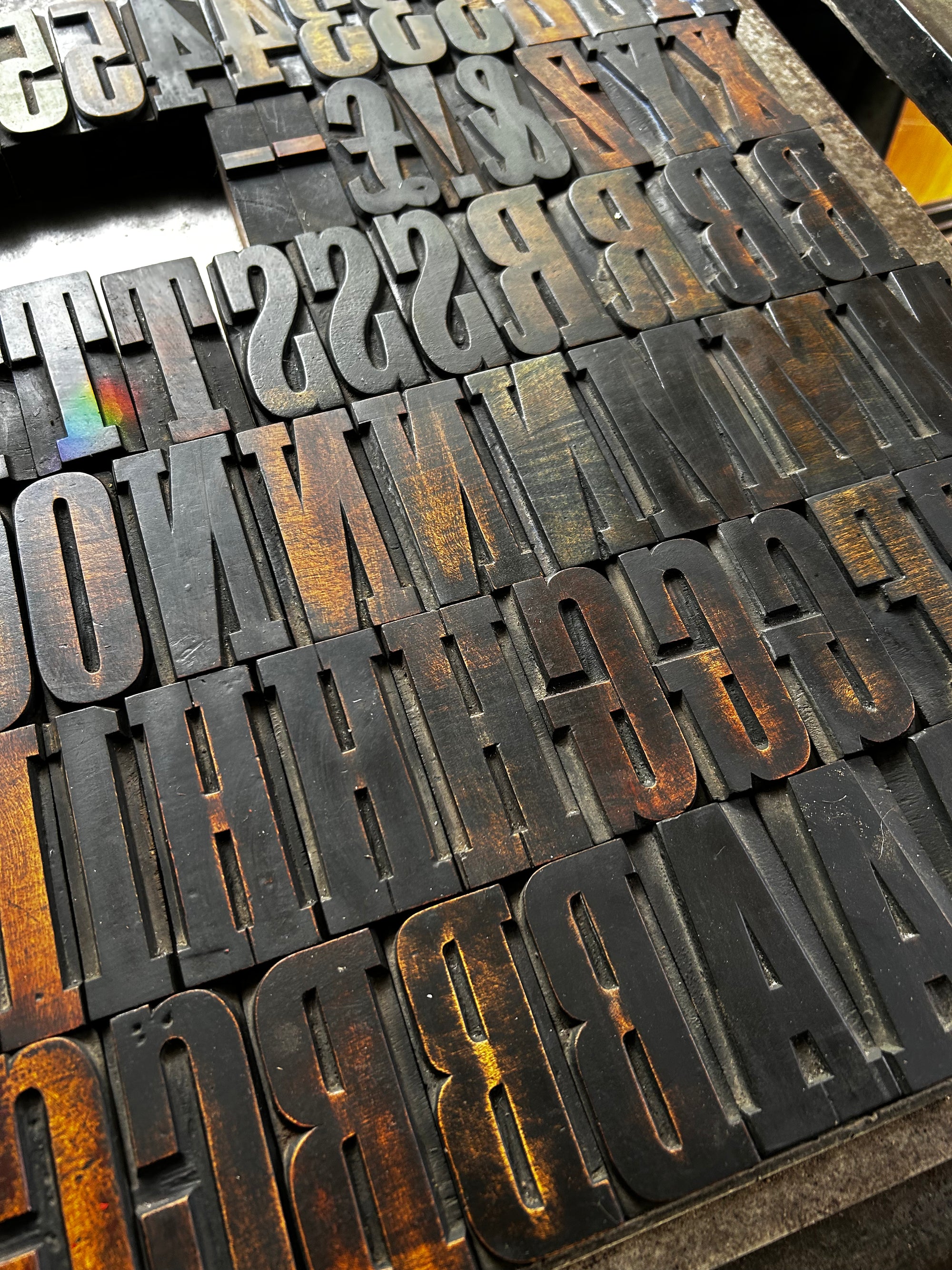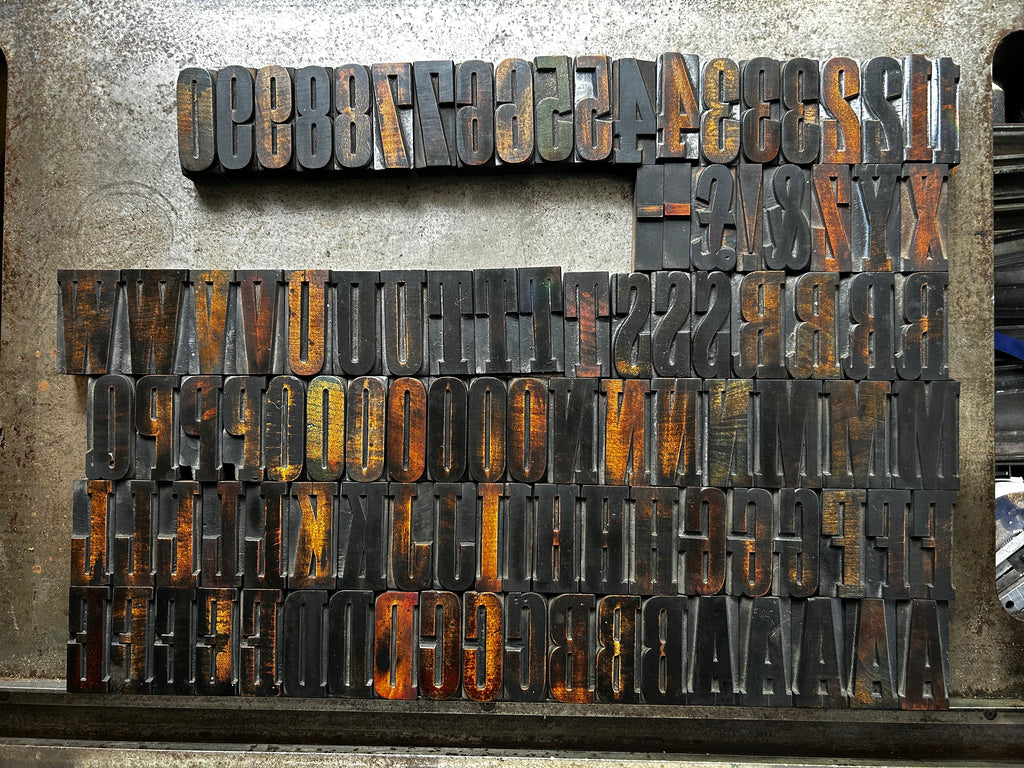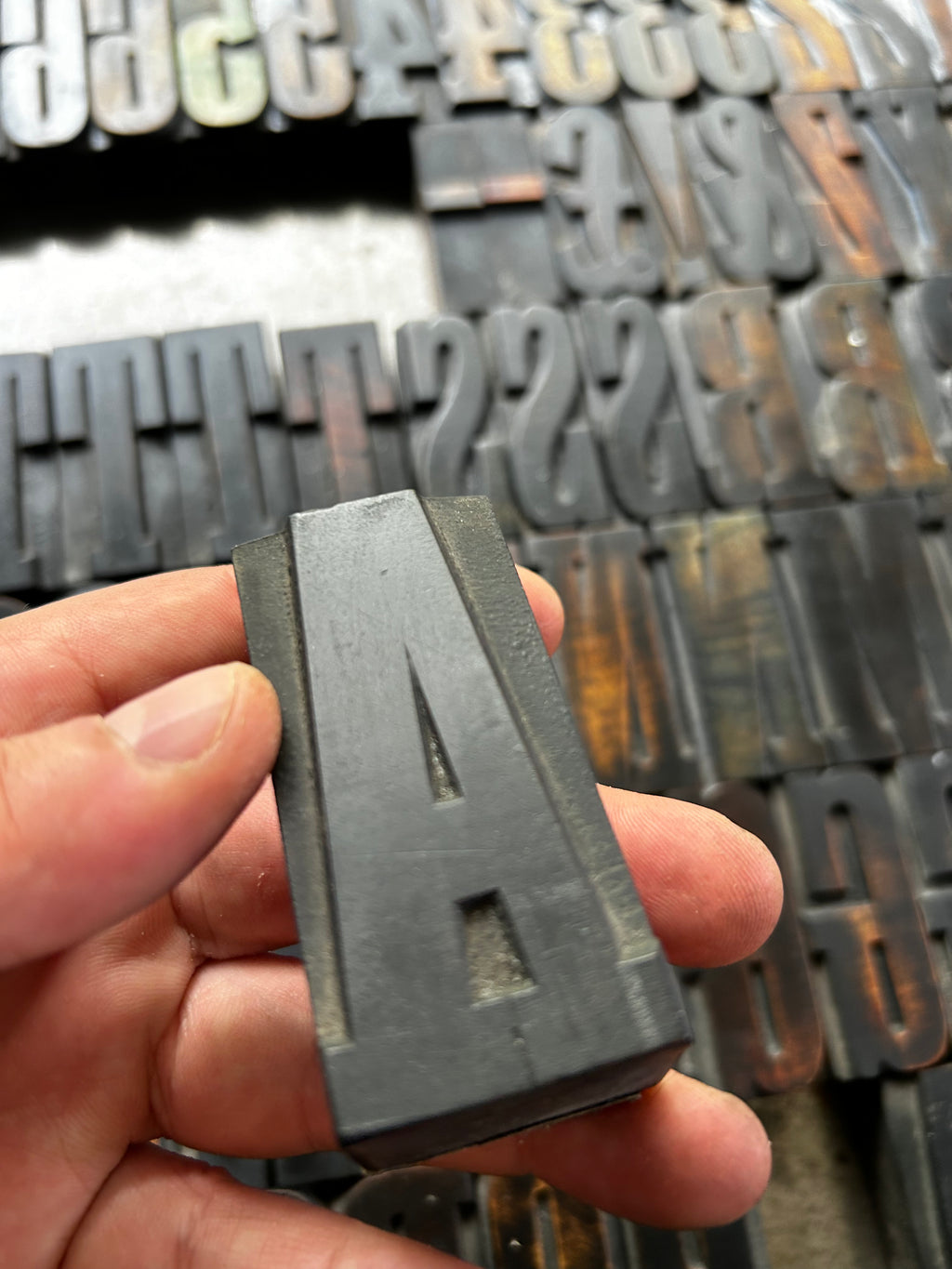
Vintage Condensed Slab Serif 16 line (67.7mm) 5A typeface
Vintage Condensed Slab Serif 16 line (67.7mm) 5A typeface - 104 blocks including punctuation and numerals
English typehigh (23.3mm). No makers mark.